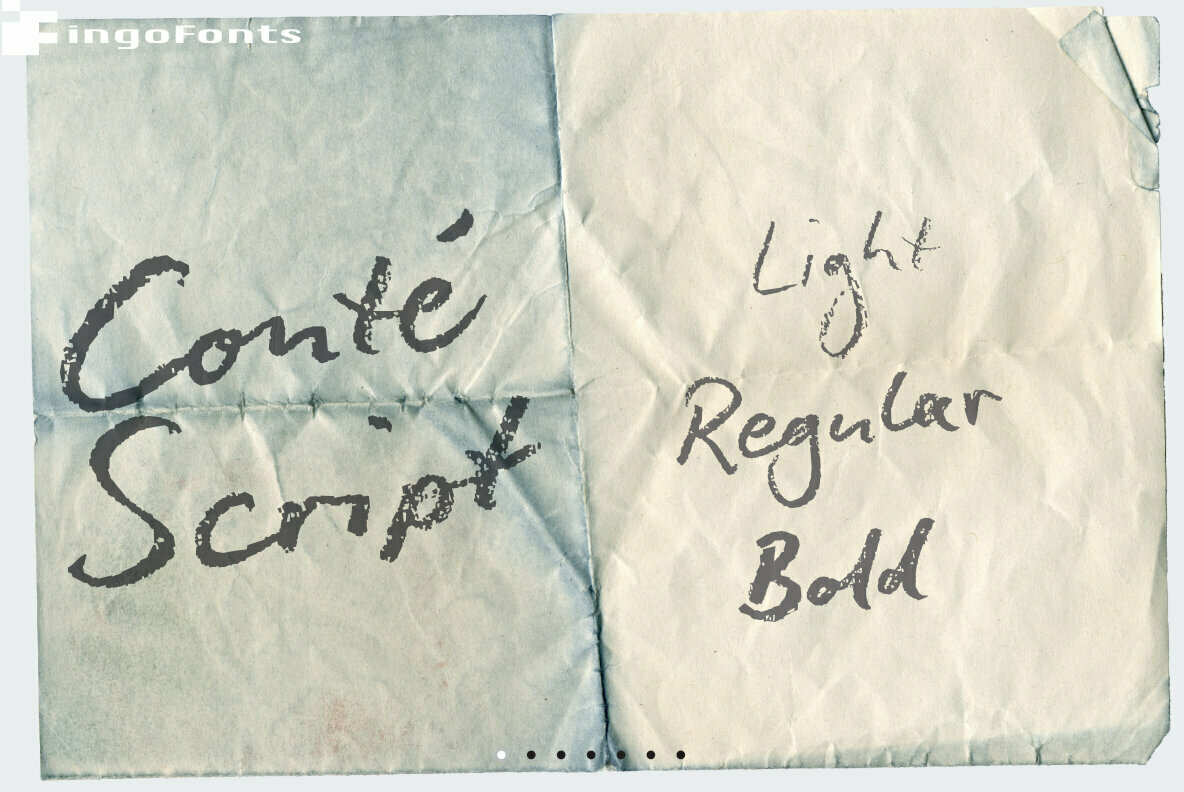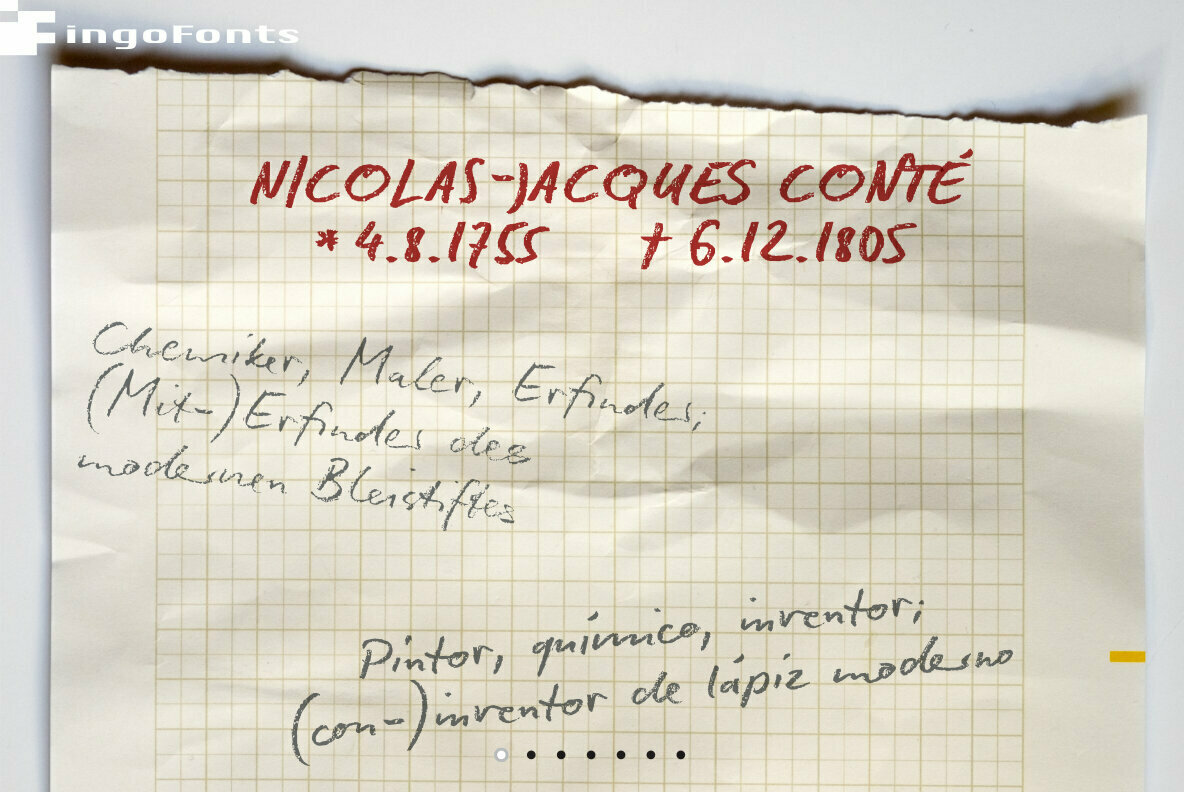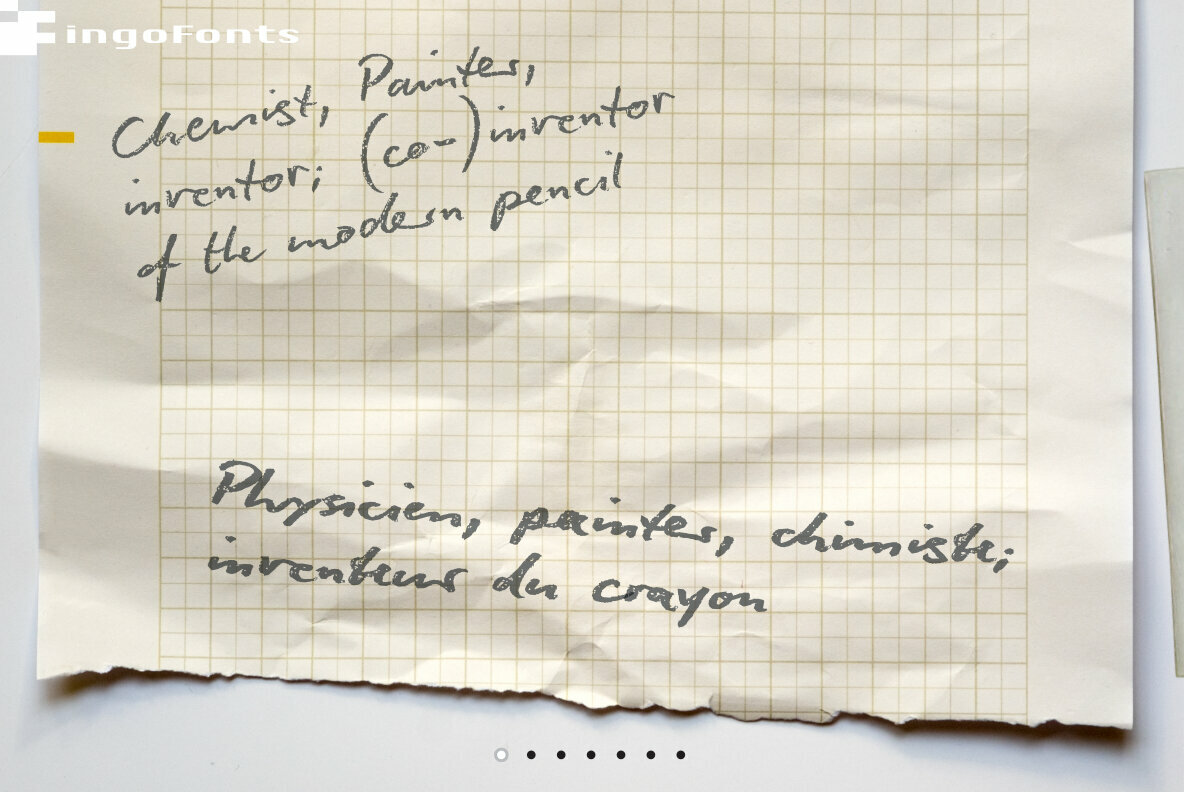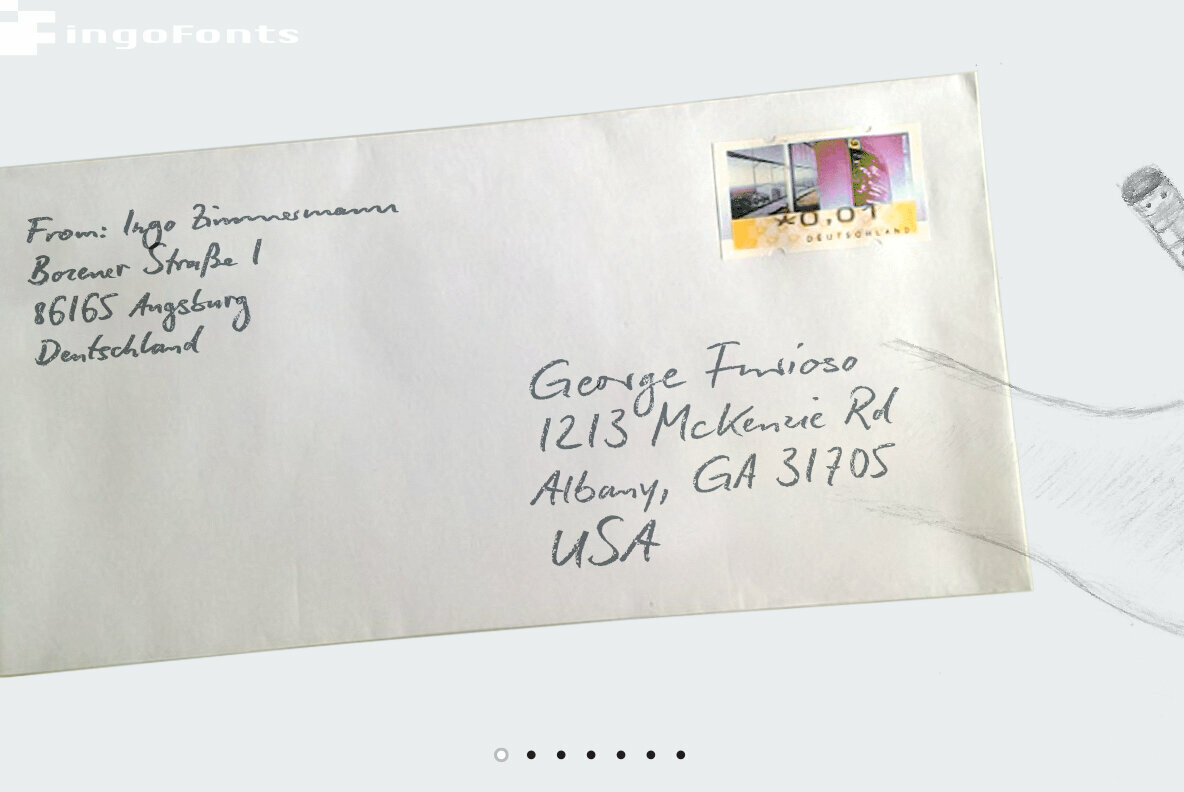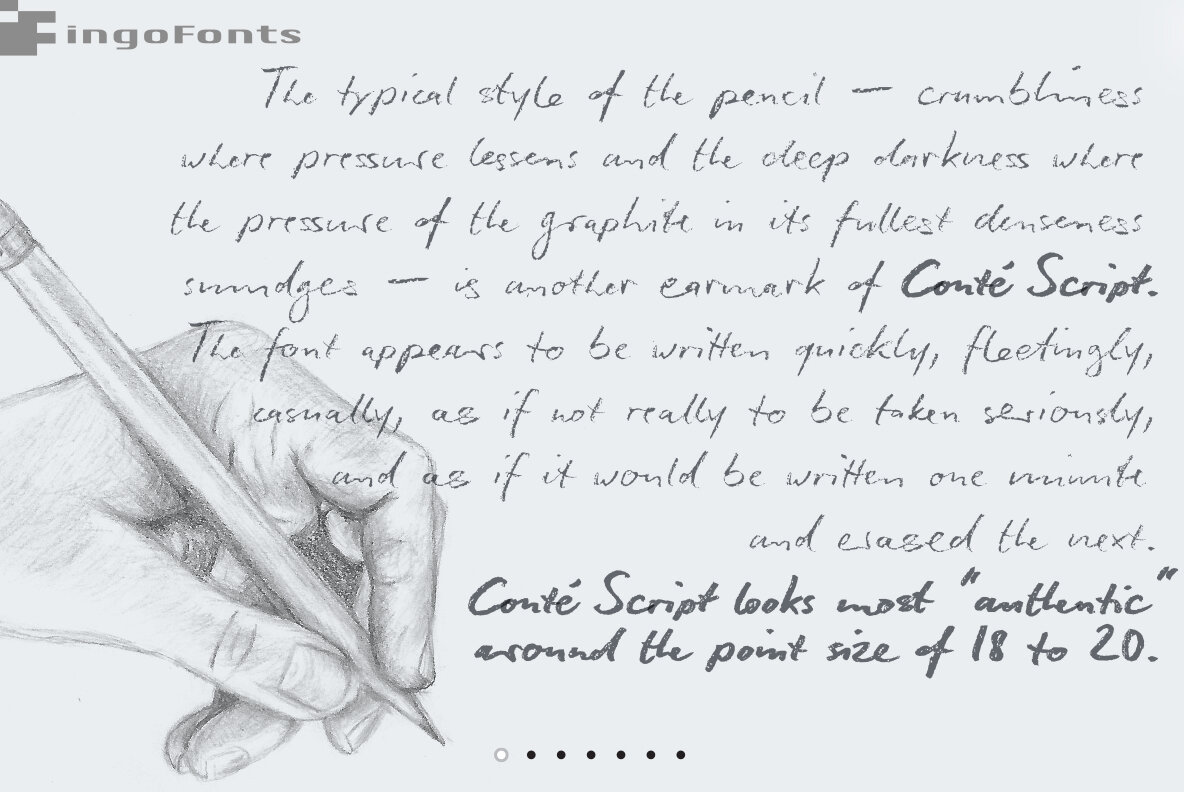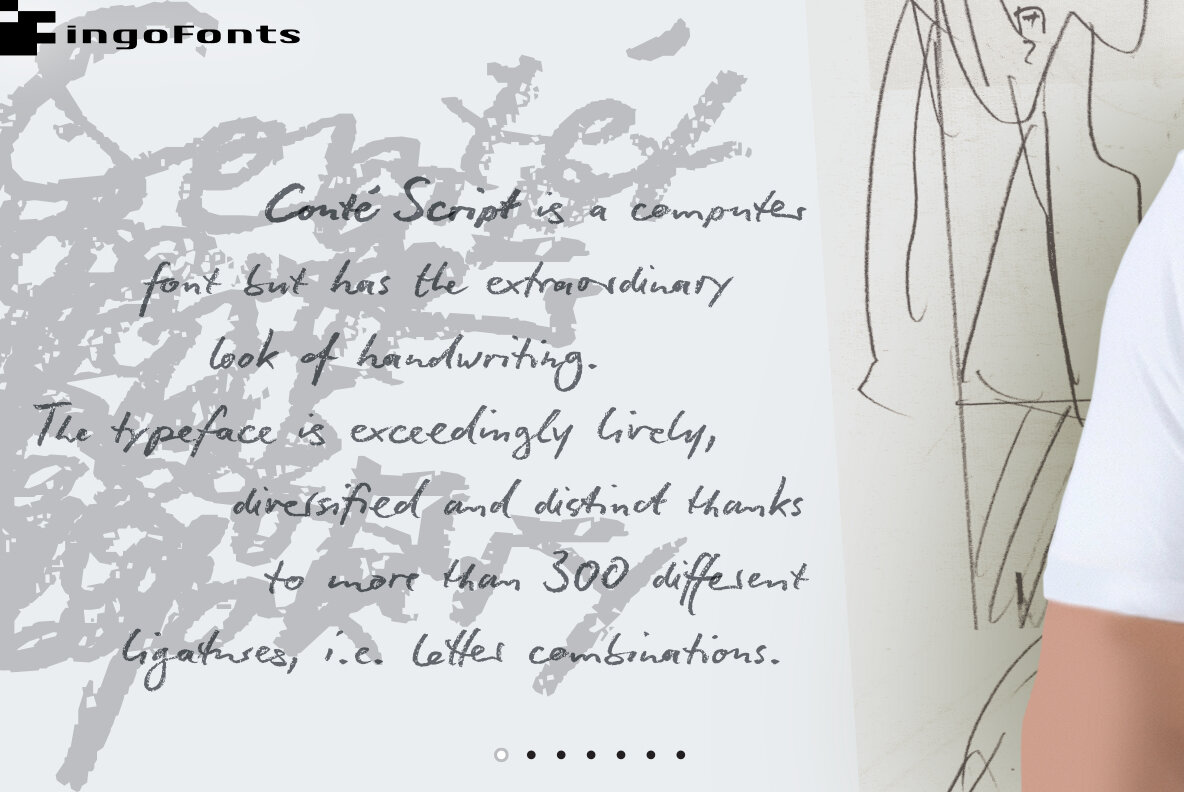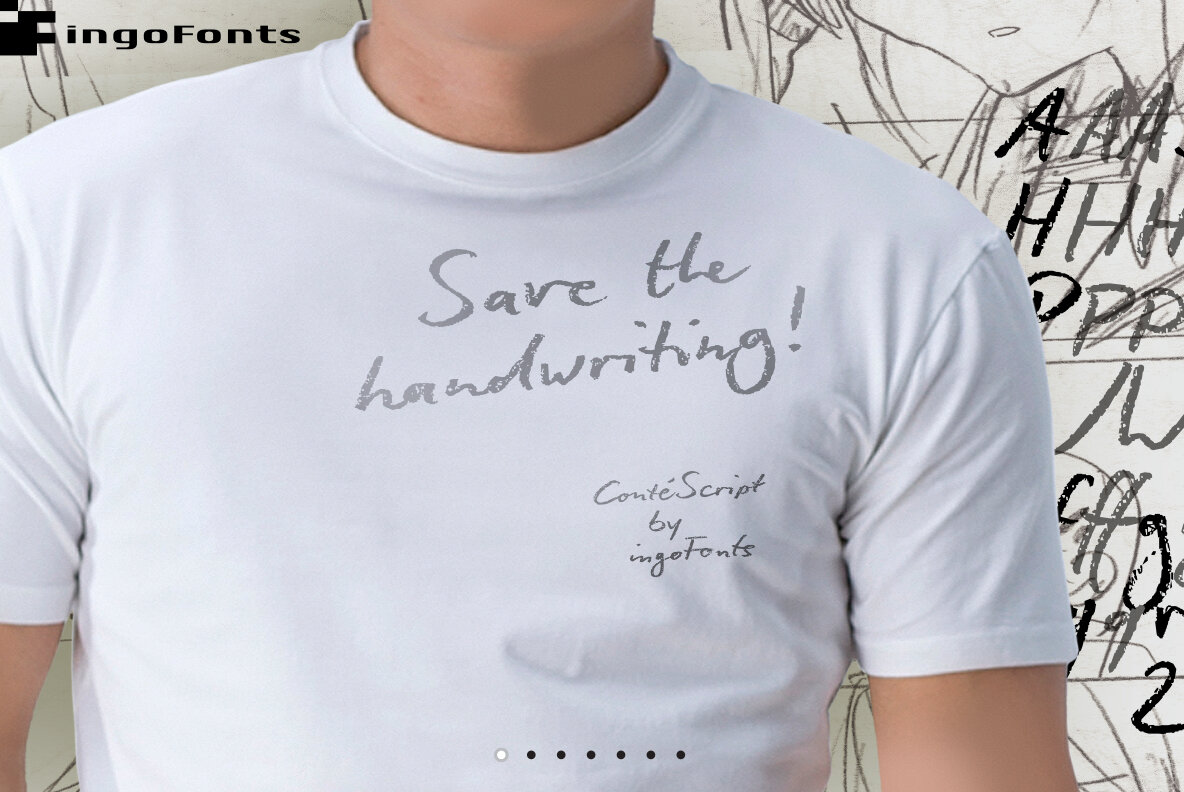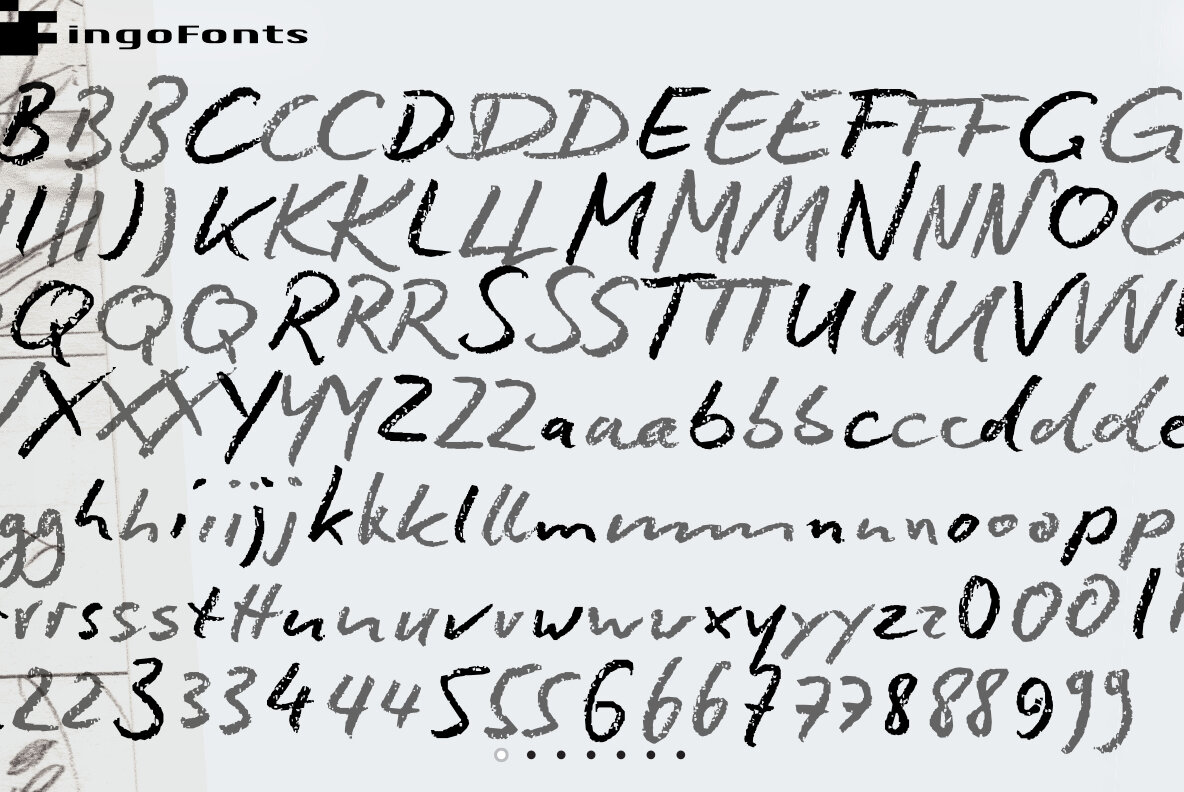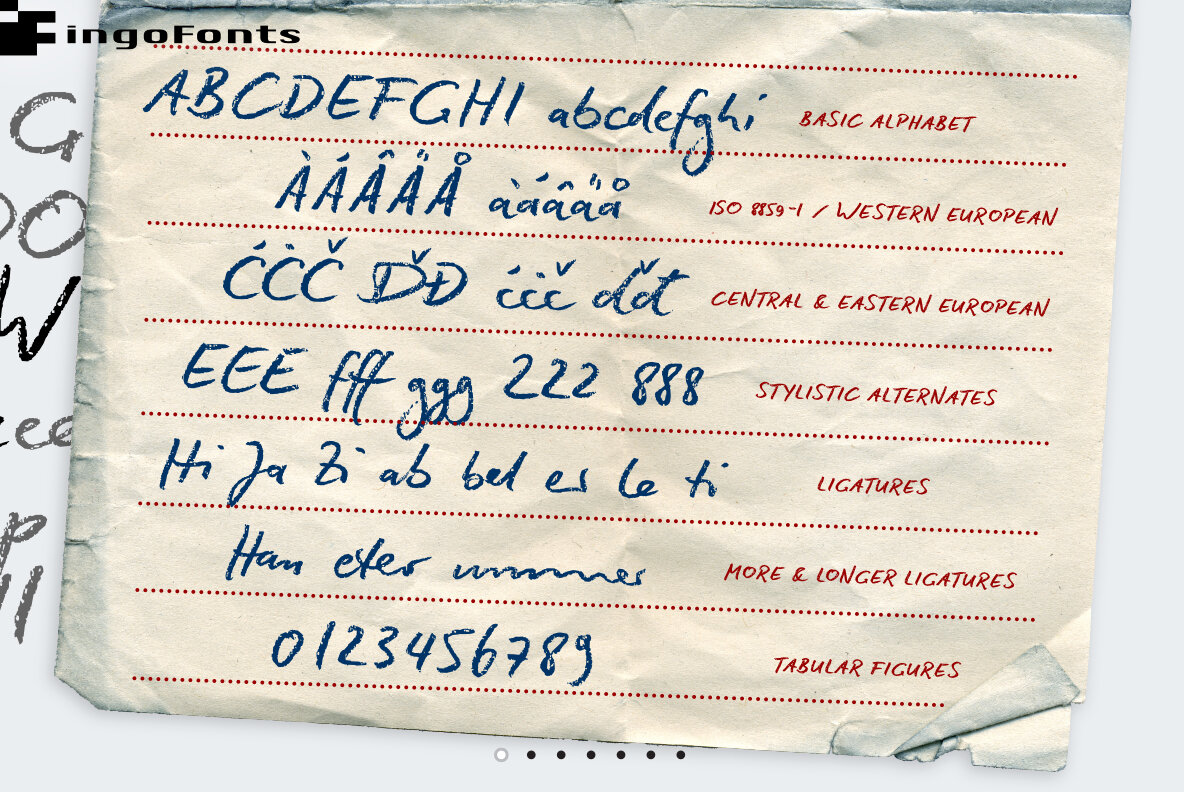
Conte Script Plus Font
Conte Script Plus Light
Conte Script Plus Regular
Conte Script Plus Bold
A customized handwriting done in pencil
Conté Script is a computer font but has the extraordinary look of handwriting. The typeface is exceedingly lively, diversified and distinct thanks to more than 300 different ligatures, i.e. letter combinations.
Conté Script is a computer font but has the extraordinary look of handwriting.
The typeface is exceedingly lively, diversified and distinct thanks to more than 300 different ligatures, i.e. letter combinations.
In order to retain the spiritedness of the handwriting in the font, various forms of the letters appear in the ligatures of Conté Script so that, for example, an a looks different almost every time depending on with which letter it is (or isn't) joined together.
In addition to the letter combinations in Conté Script, there are also double letters and figures included (aa, ff, AA, MM, 22, 66…) as ligatures with stylistic alternates.
The typical style of the pencil — crumbliness where pressure lessens and the deep darkness where the pressure of the graphite in its fullest denseness smudges — is another earmark of Conté Script. The font appears to be written quickly, fleetingly, casually, as if not really to be taken seriously, and as if it would be written one minute and erased the next.
Conté Script looks most ”authentic“ around the point size of 18 to 20.